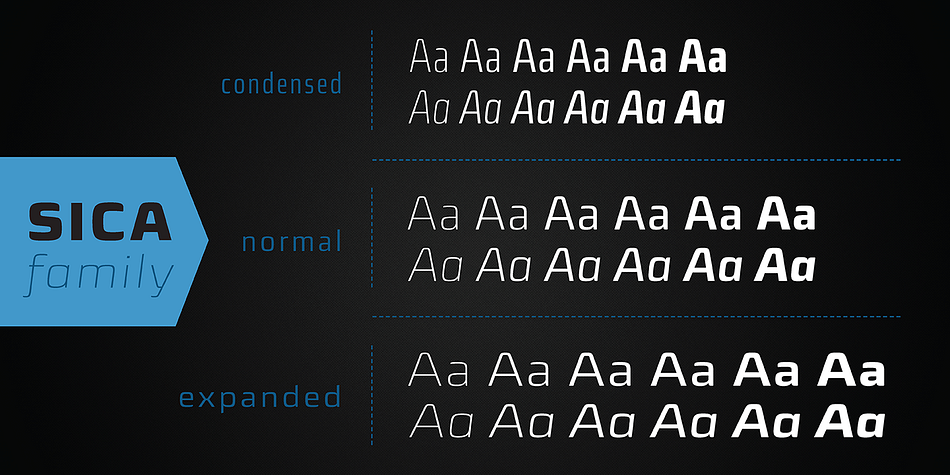
Sica
Sica is a sans serif font family. This typeface has twelve styles and was published by dooType.
The Sica Family was designed in order to address issues related to technology, while maintaining humanistic forms. Thus, a font with square shapes emerged, but with smooth curves and slightly rounded terminals making it friendly.
The family has three widths – condensed, normal and expanded – each of them with six weights and their respective italics, resulting in 36 fonts.
With particular details and open shapes that increase legibility, it can be used for both text compositions as well for display sizes.
It has 774 glyphs, covering more than 50 languages, as well as ligatures, lining, oldstyle, tabular and proportional figures, fractions, superiors, inferiors, and small caps, all of them accessible through OpenType features.
Sica is a twelve font, sans serif family by dooType.
Sica  has extensive OpenType support including 1 additional stylistic sets, Stylistic Alternates, Lining Figures and Standard Ligatures making it a powerful font for experienced designers.
Sica has extensive Latin language support.
Sica is a sans serif font family.
The Sica Family was designed in order to address issues related to technology, while maintaining humanistic forms. Thus, a font with square shapes emerged, but with smooth curves and slightly rounded terminals making it friendly.
The family has three widths – condensed, normal and expanded – each of them with six weights and their respective italics, resulting in 36 fonts. With particular details and open shapes that increase legibility, it can be used for both text compositions as well for display sizes. It has 774 glyphs, covering more than 50 languages, as well as ligatures, lining, oldstyle, tabular and proportional figures, fractions, superiors, inferiors, and small caps, all of them accessible through OpenType features.